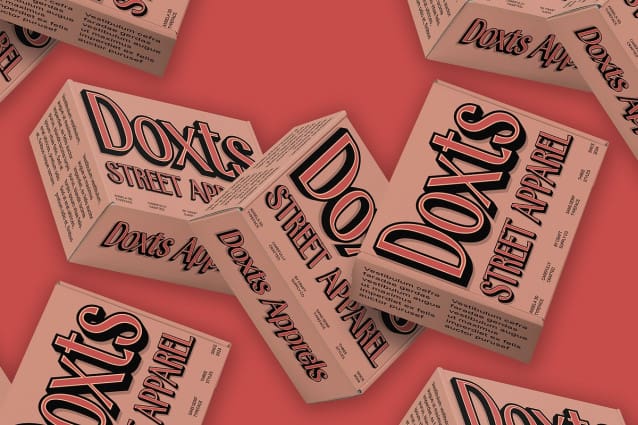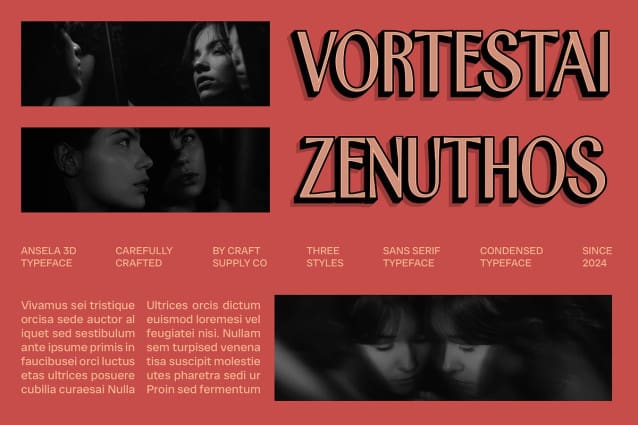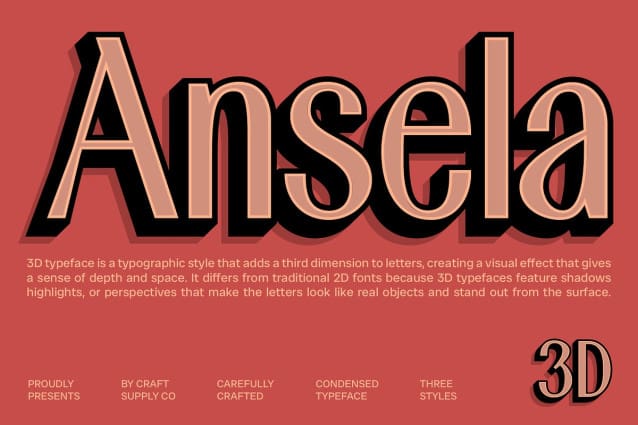
Ansela 3D Font
Ansela 3D Font is a modern condensed sans serif font that features a sleek and elegant design, making it perfect for projects that require a sophisticated impression. Its refined form balances contemporary aesthetics with practicality, ensuring readability across various applications.
3D Effect for Added Dimension The addition of a striking 3D effect introduces dimension and depth to Ansela 3D, elevating its visual appeal. This enhancement creates a dynamic presence, allowing the font to stand out and capture attention in any design context.
Perfect for Branding and Advertising Ideal for branding, advertising, and impactful headlines, Ansela 3D emphasizes modernity and style. Its elegant structure combined with the 3D effect ensures that your message resonates with clarity and sophistication, making it a perfect choice for contemporary designs.
Versatile for Various Applications Whether you are creating logos, promotional materials, or stylish editorial layouts, Ansela 3D provides the visual strength needed to make a statement. Its elegant yet powerful design makes it adaptable to a wide range of projects, allowing for creativity without compromising professionalism.